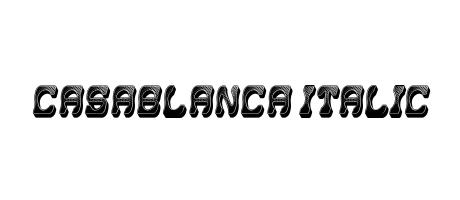
Casablanca
Casablanca Italic: A bold, retro-inspired typeface with a playful, slightly mischievous slant. Its chunky, uppercase letters possess a three-dimensional quality, achieved through subtly layered strokes that give it depth and texture. The italic style adds a dynamic, energetic feel, suitable for eye-catching titles or logos with a vintage vibe.
Vladimir Nikolic